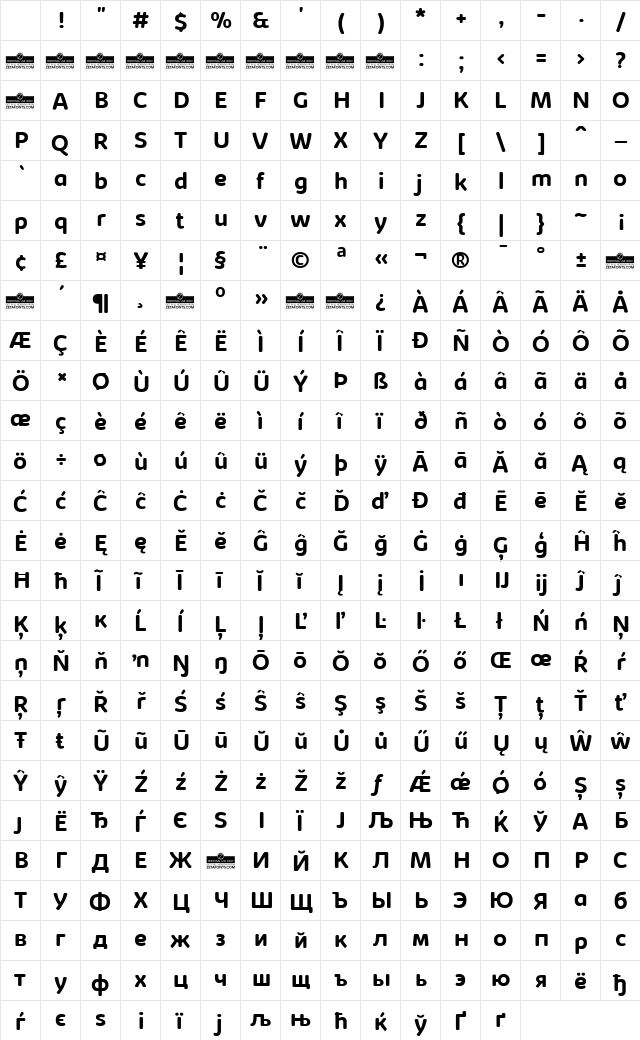
Kabrio Soft Bold Free Font
Kabrio Soft Bold
Foundry: studio kmzero
Designer: Corimo Lorenzo Pancini
Design Context for Kabrio Soft
Kabrio Soft is a composed and adaptable typeface that performs quietly and consistently across a wide range of design contexts. Its bold stroke weight gives it real presence on the page.